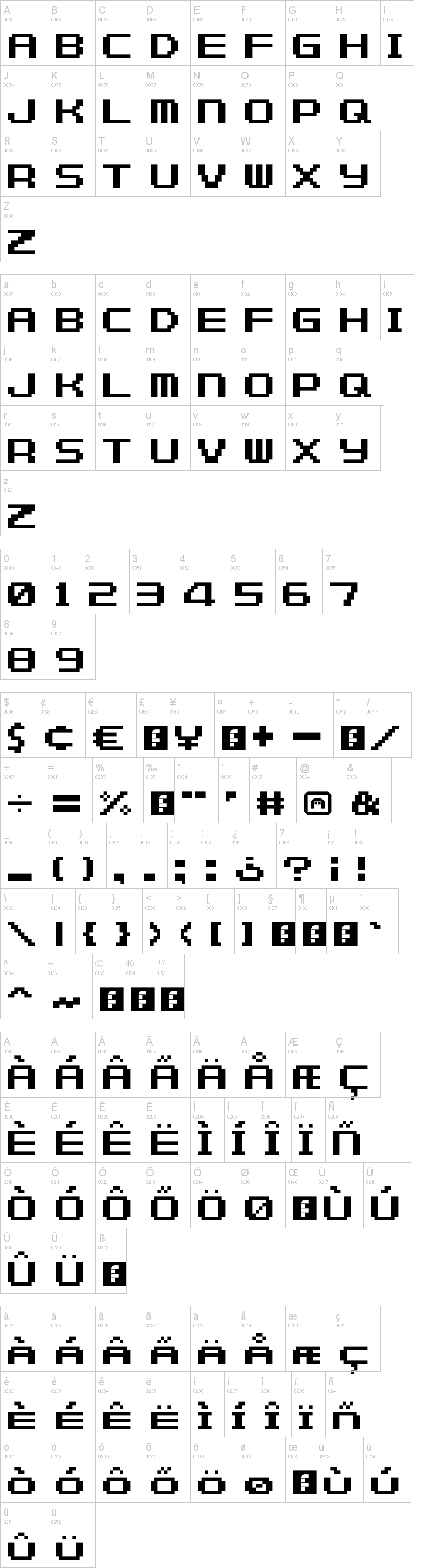
Note of the authorFont used in Create/Select Profile and the track names, made some custommade Cyrillic letters and some more latin letters, expect some more latin letters finished soon.